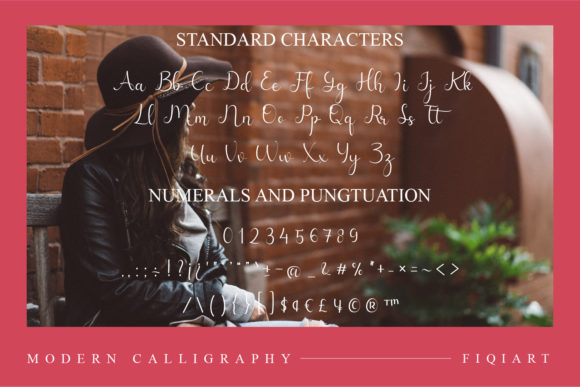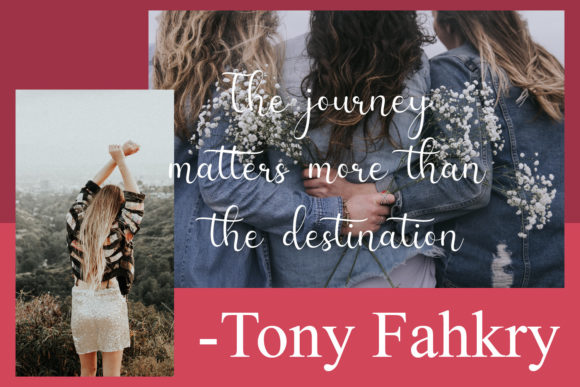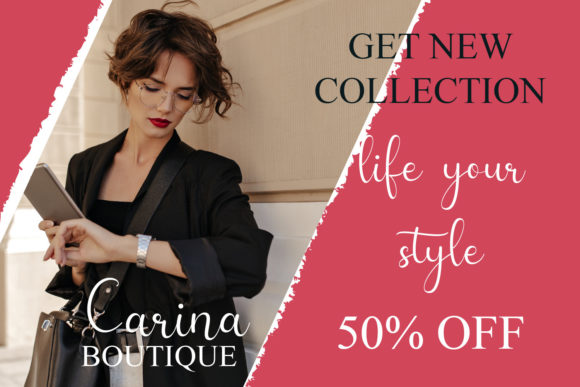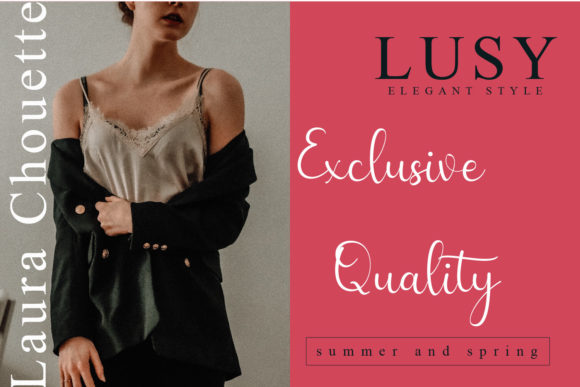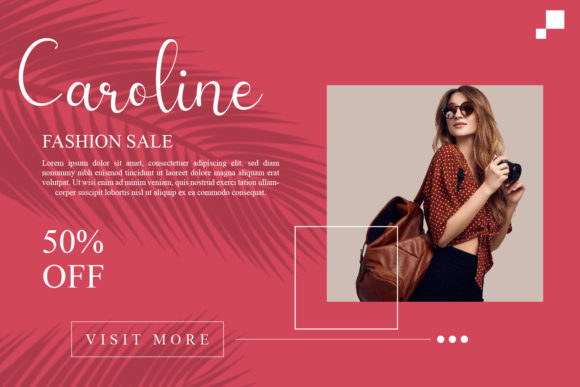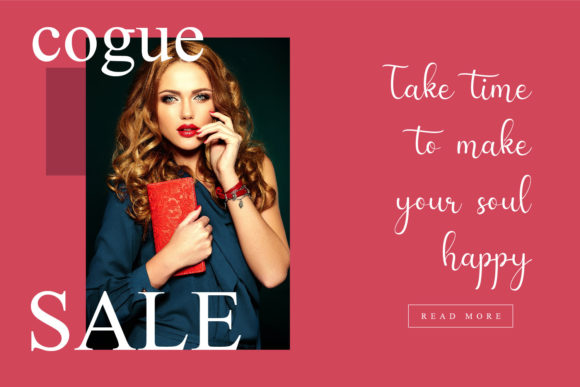
Introduction to Nurmala Font
As you sit down to plan your creative project, you’re often faced with the daunting task of finding the perfect font to bring your vision to life. Whether it’s a wedding invitation, a birthday card, or a special gift for a loved one, the right font can make all the difference in setting the tone and capturing the essence of your message. And that’s exactly where the Nurmala Font comes in – a sweet and delicate handwritten font that exudes joy and romance.
Imagine scrolling through a design resource, searching for the perfect font to match your high-quality design. Suddenly, you stumble upon Nurmala Font, and its dainty charm instantly catches your eye. With its transparent background and elegant feel, it’s no wonder why designers are falling in love with this free download. In this article, we’ll dive into the world of Nurmala Font and explore why it’s a valuable resource for designers looking to add a touch of personality to their creative projects.
Nurmala Font
- High-quality font design suitable for creative projects, with a transparent background allowing for seamless integration into various design elements.
- Unique characteristics include a clean and elegant aesthetic, making it suitable for a wide range of creative projects, from logos to typography-based designs.
- Perfect design resource for artists and designers seeking a high-quality, free font to enhance their creative projects.
Honest Review: Nurmala Font
I recently came across the Nurmala Font, and I was excited to dive in and see what it had to offer. As a designer, I’m always on the lookout for high-quality fonts that can elevate my creative projects.
- ✨ The Nurmala Font has a beautiful, modern design that’s perfect for a variety of creative projects.
- ✨ The font is highly legible, even on a transparent background, making it ideal for projects that require a lot of text.
- ✨ The font is well-suited for digital design, and it’s a great addition to any design resource library.
- ⚠️ The font only comes in one weight, which may limit its versatility for certain projects.
- ⚠️ The font doesn’t have a lot of ligatures or special characters, which may be a drawback for designers who need to use them frequently.
Overall, I was impressed with the Nurmala Font, and I think it’s a great addition to any designer’s toolkit. While it may have some limitations, its high quality and modern design make it a great choice for a variety of creative projects.
Nurmala Font
Tips for Getting the Most Out of Nurmala Font
For the best results, use the Nurmala Font in conjunction with a transparent background to create a seamless design. You can also experiment with different font sizes and styles to add depth and visual interest to your project.
The Nurmala Font is ideal for a variety of creative projects, including branding, marketing materials, and digital graphics. Its unique design and high-quality design make it a popular choice among designers and artists.
Alternatives to Nurmala Font
Ostrich Sans is a highly legible sans-serif font ideal for creative projects requiring a clear and high-quality font. It is available for free download and features a transparent background, making it perfect for overlaying text on images. Ostrich Sans is a great alternative to Nurmala Font when you need a clean and modern look.
Montserrat is a geometric sans-serif font that is perfect for creative projects requiring a high level of sophistication. It is highly customizable and features a wide range of weights and styles. Montserrat is a great alternative to Nurmala Font when you need a font with a strong, urban feel.